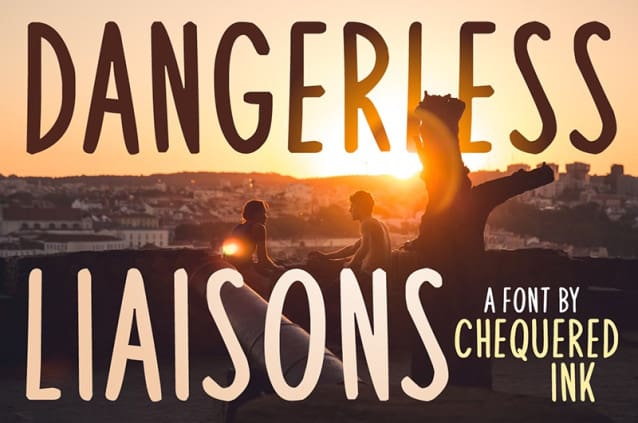
Dangerless Liaisons Font
Dangerless Liaisons Font, perfectly fit for branding, logo, wedding things, greeting cards, fashion, lookbook, marketing promotion, anytime you want to look fancy elegant but still casual.